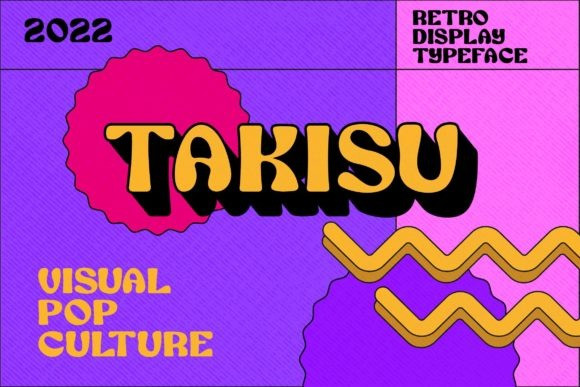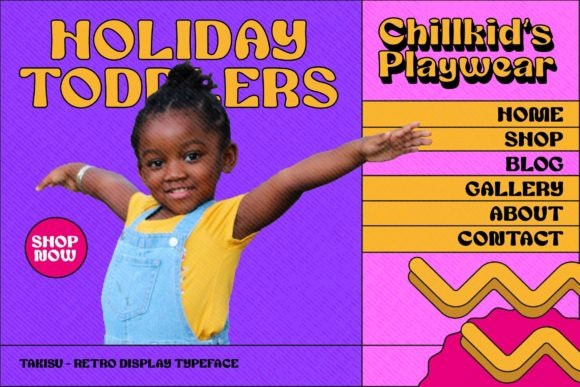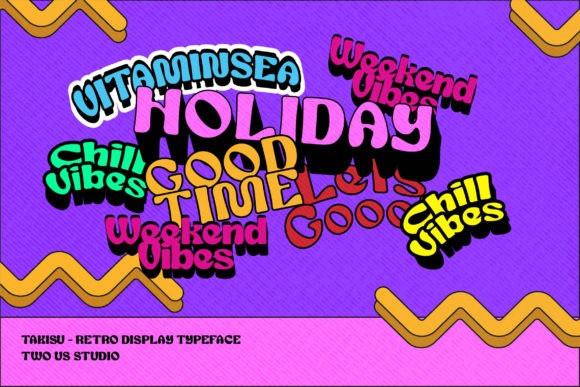
Takisu Font
Takisu is a unique and retro sans serif family font. This vintage and playful font can easily become your favorite. It can be used for books, magazines, social media posts, invitations, and so much more! So add this to your creations and take your designs to the next level!